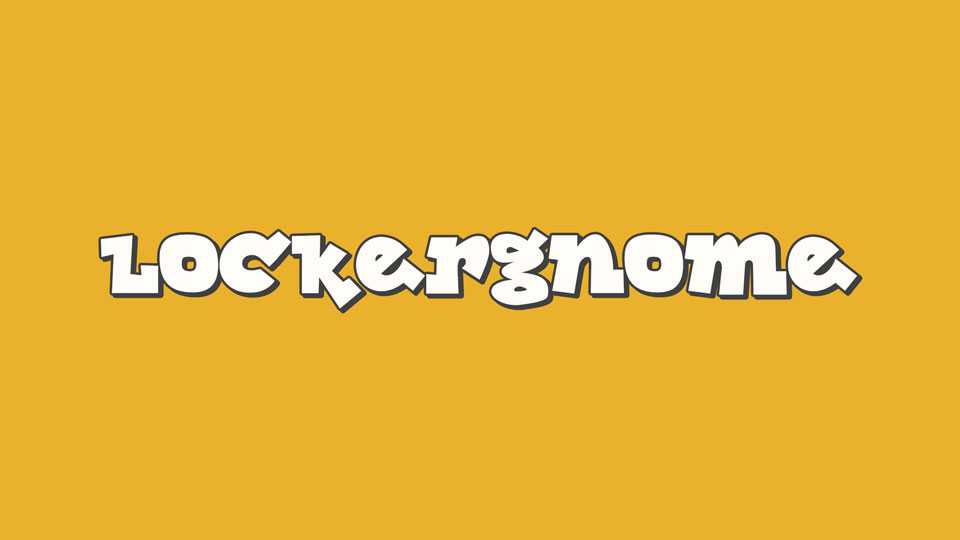
Download Lockergnome font, an aggressive headline screamer typeface that grabs attention with its nasty serifs and obnoxious curves.
Designer: Typodermic Fonts